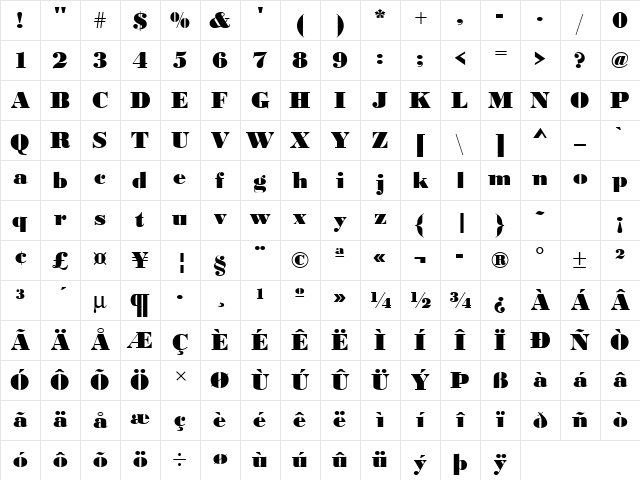
URWBodoniDExtBol Regular
Design Context for URWBodoniDExtBol
URWBodoniDExtBol is a composed and adaptable typeface that performs quietly and consistently across a wide range of design contexts.
Pro Tip: Use URWBodoniDExtBol in both headline and body roles to test its range before committing to a single application.